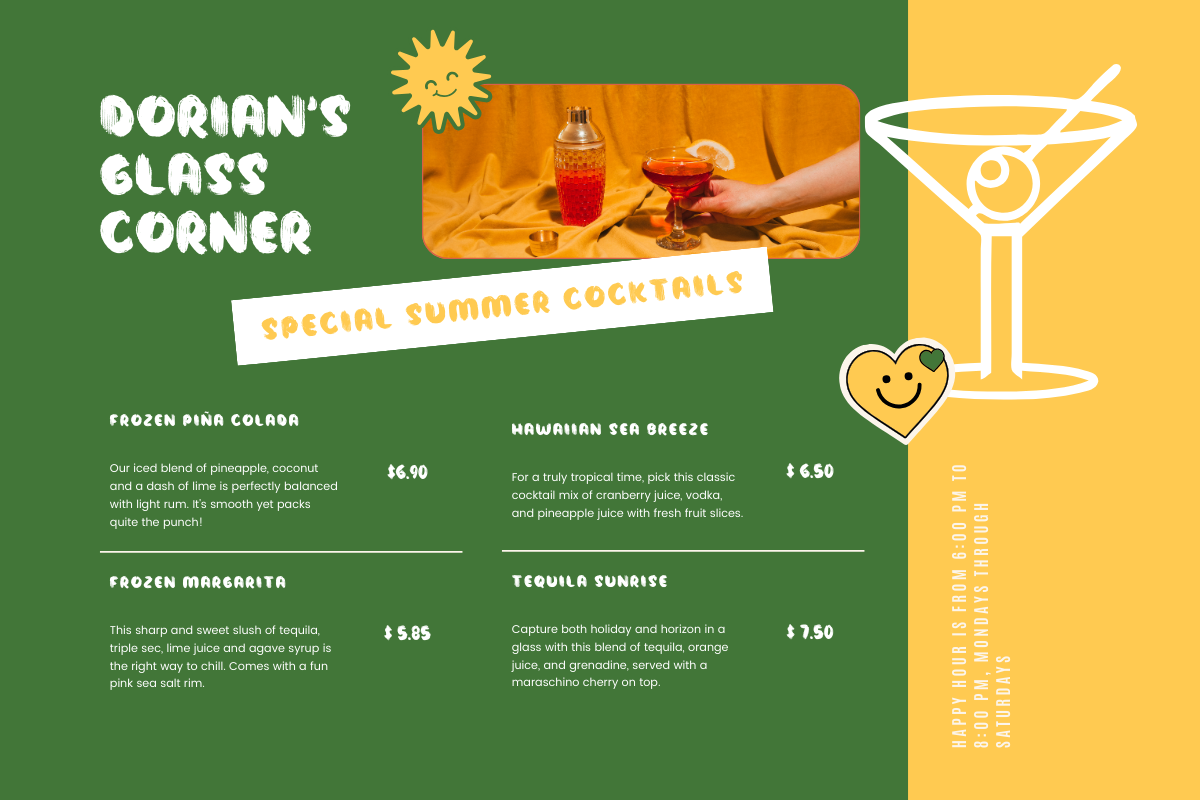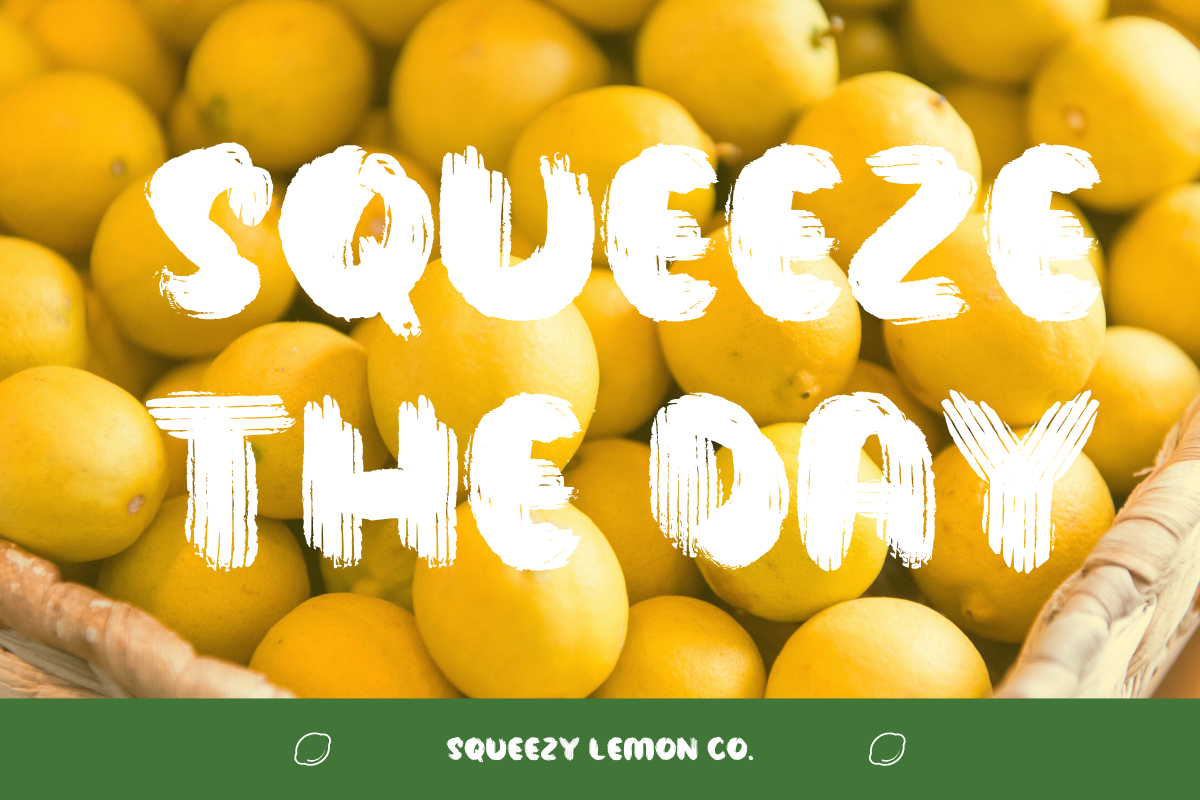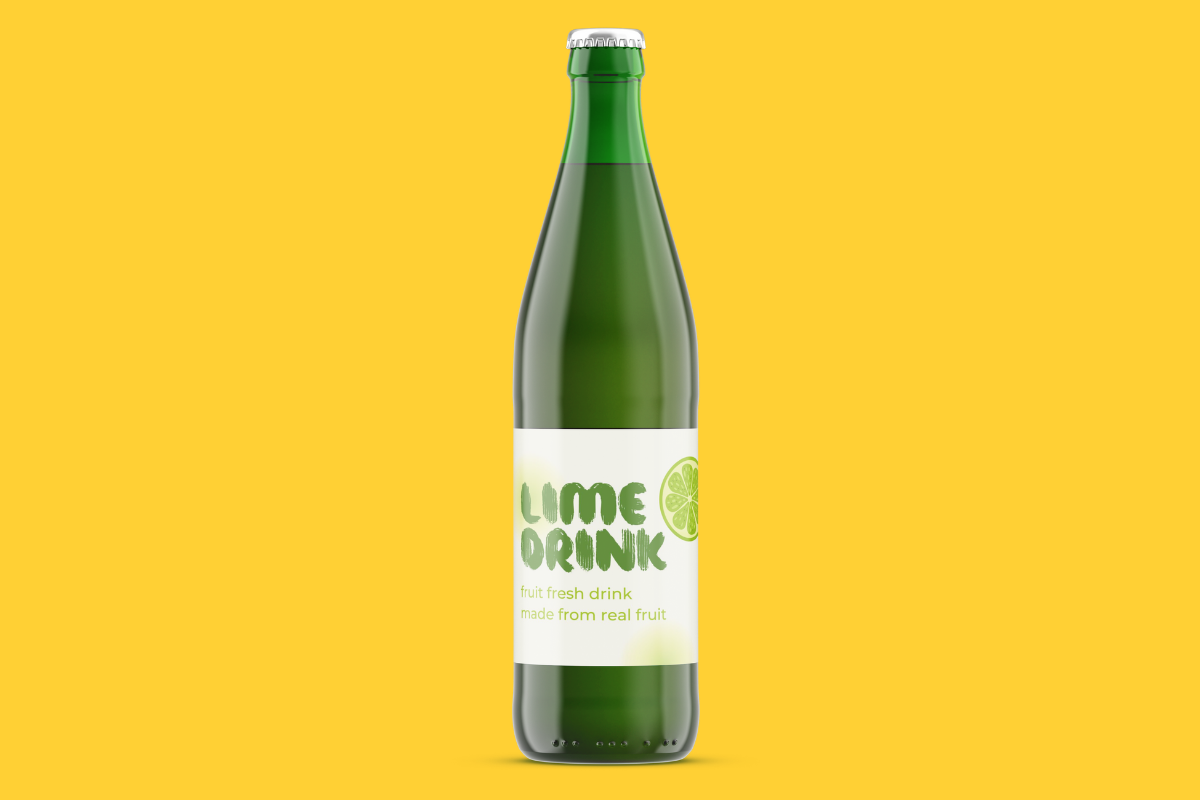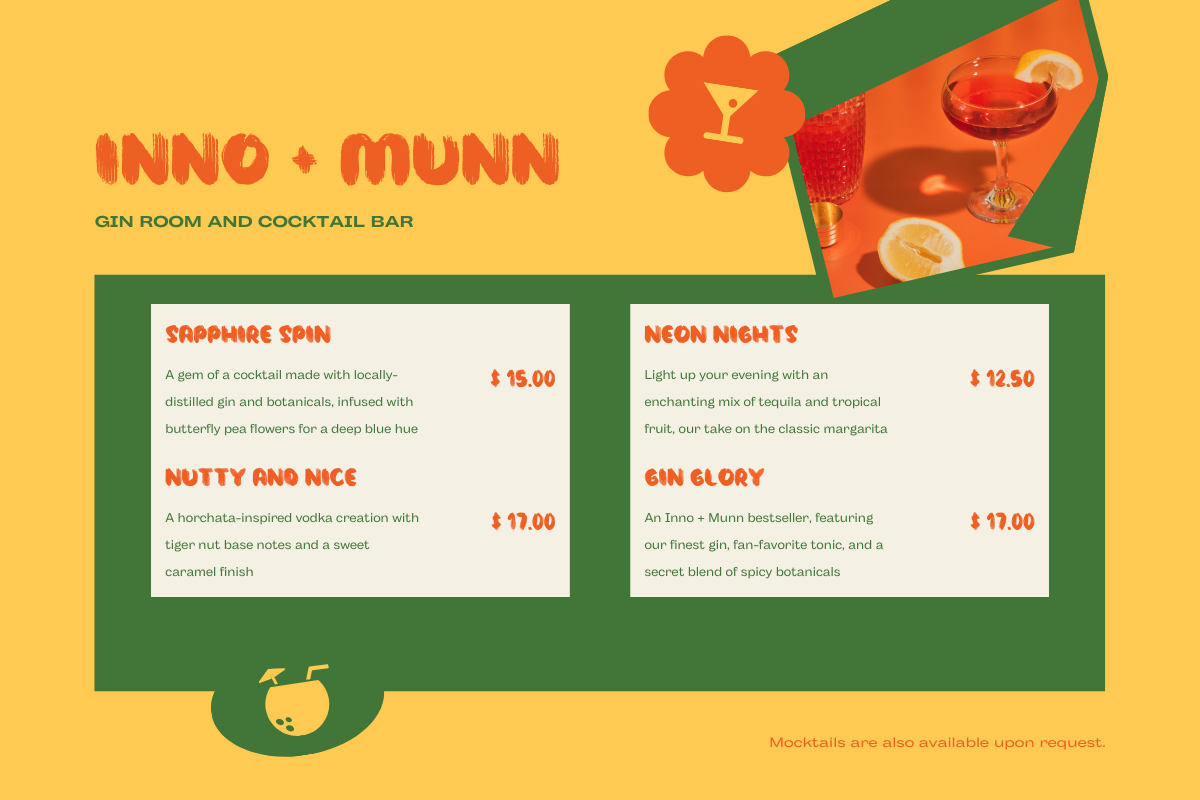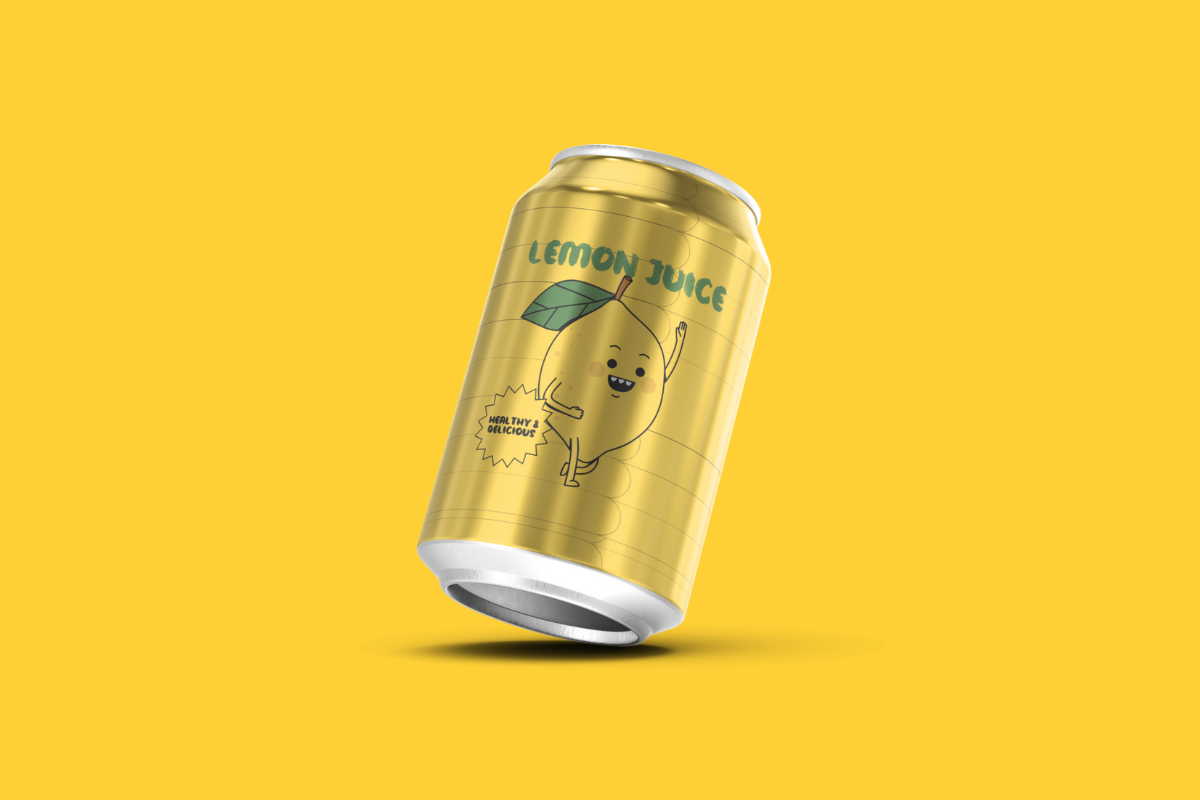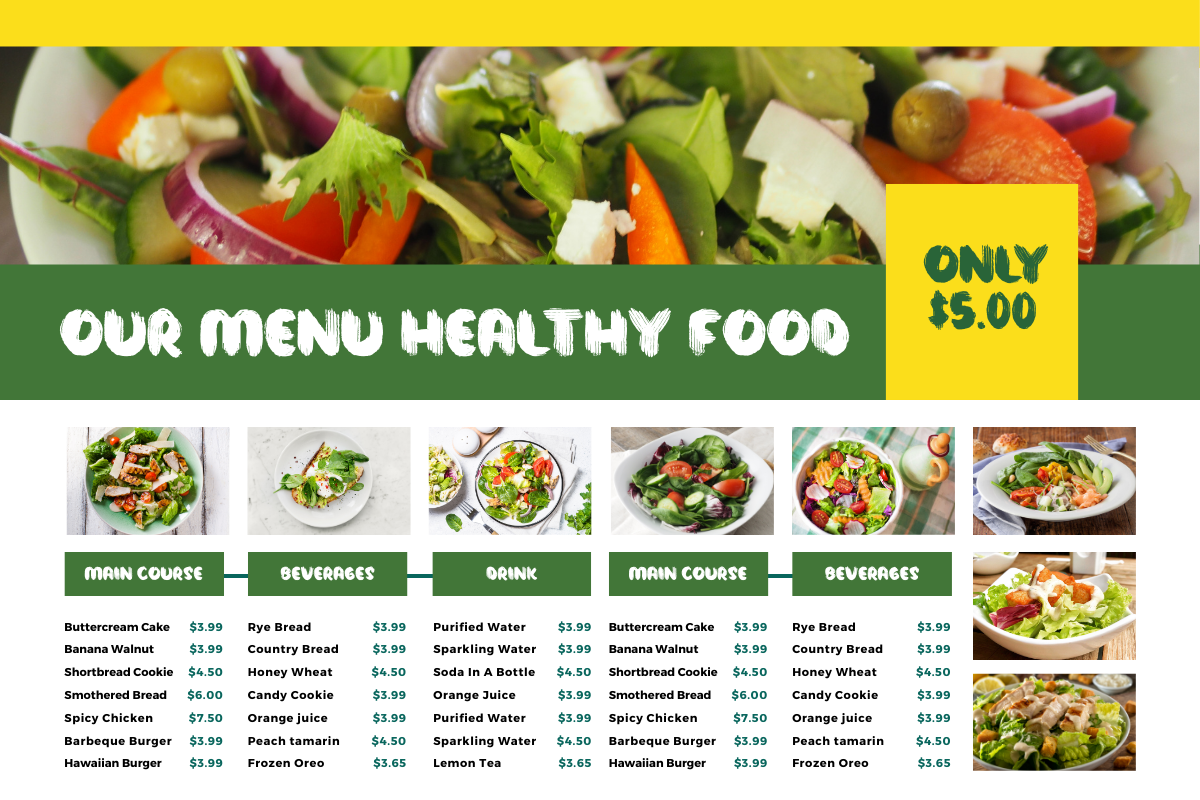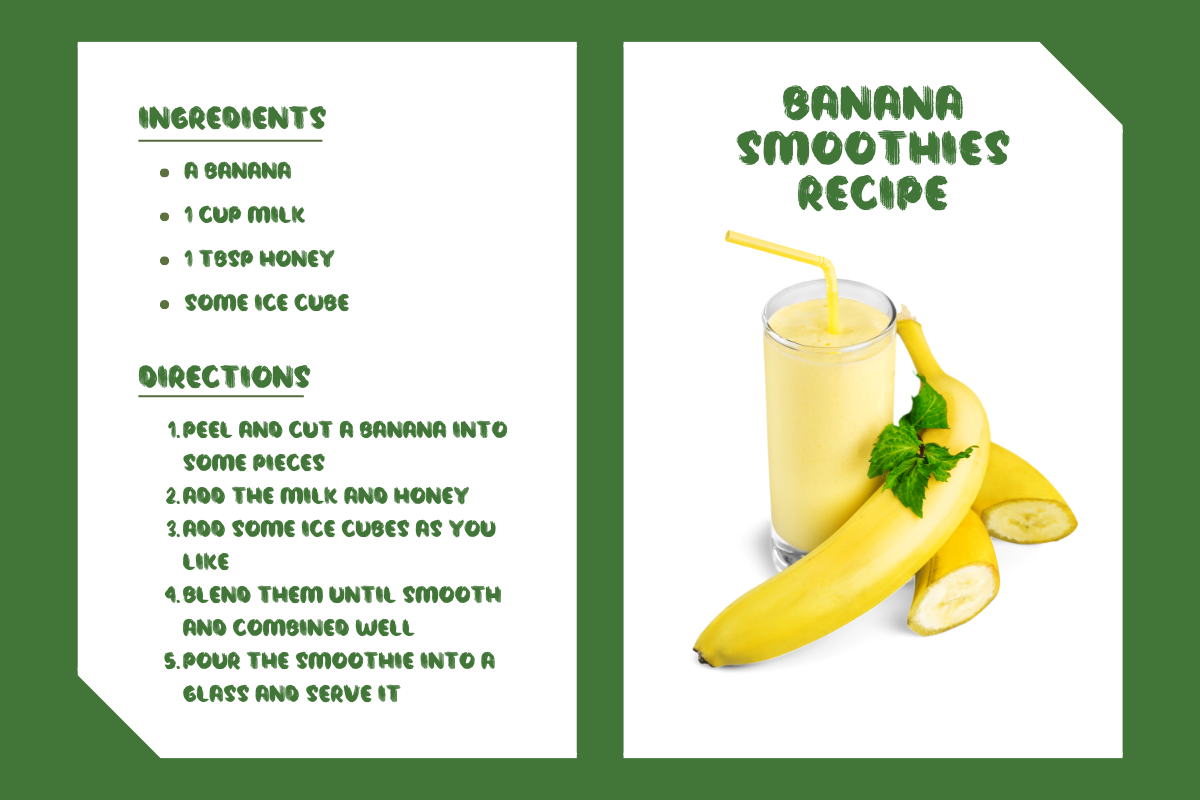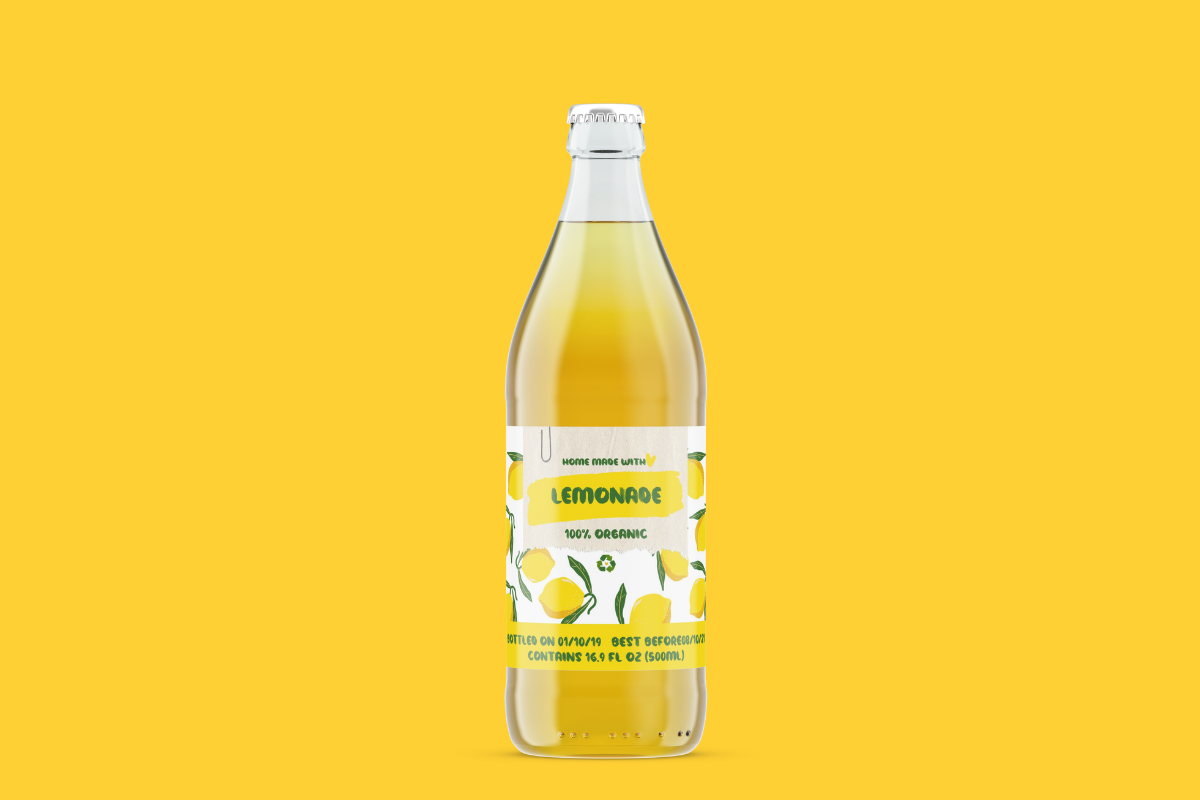
Lemon Mojito – Natural Handbrush
Introducing Lemon Mojito – Natural Bold Handbrush Font is a fresh and bold choice for your design projects. Built with boldness and authenticity, this font offers a distinctive touch with evocative bold accents. With all capital letters, Lemon Mojito brings out the splendor and boldness in each of its characters.
The natural, bold hand style provides a unique and eye-catching feel, making it the perfect choice for projects that require a bold and original feel. Like a refreshing drink that brings refreshment, Lemon Mojito will brighten up your designs with unbeatable vibrancy and boldness.